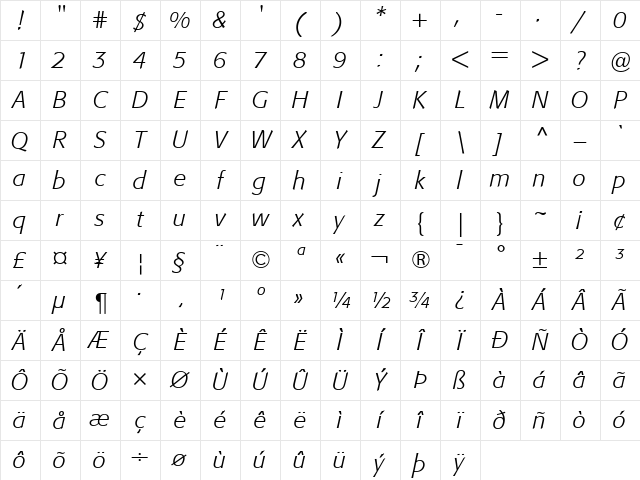
Formata Italic
Design Context for Formata
Formata is a composed and adaptable typeface that performs quietly and consistently across a wide range of design contexts. The slanted form adds forward momentum and visual energy.
Pro Tip: Use Formata for emphasis, pull quotes, and subheadings where its slanted energy can add rhythm to the layout.